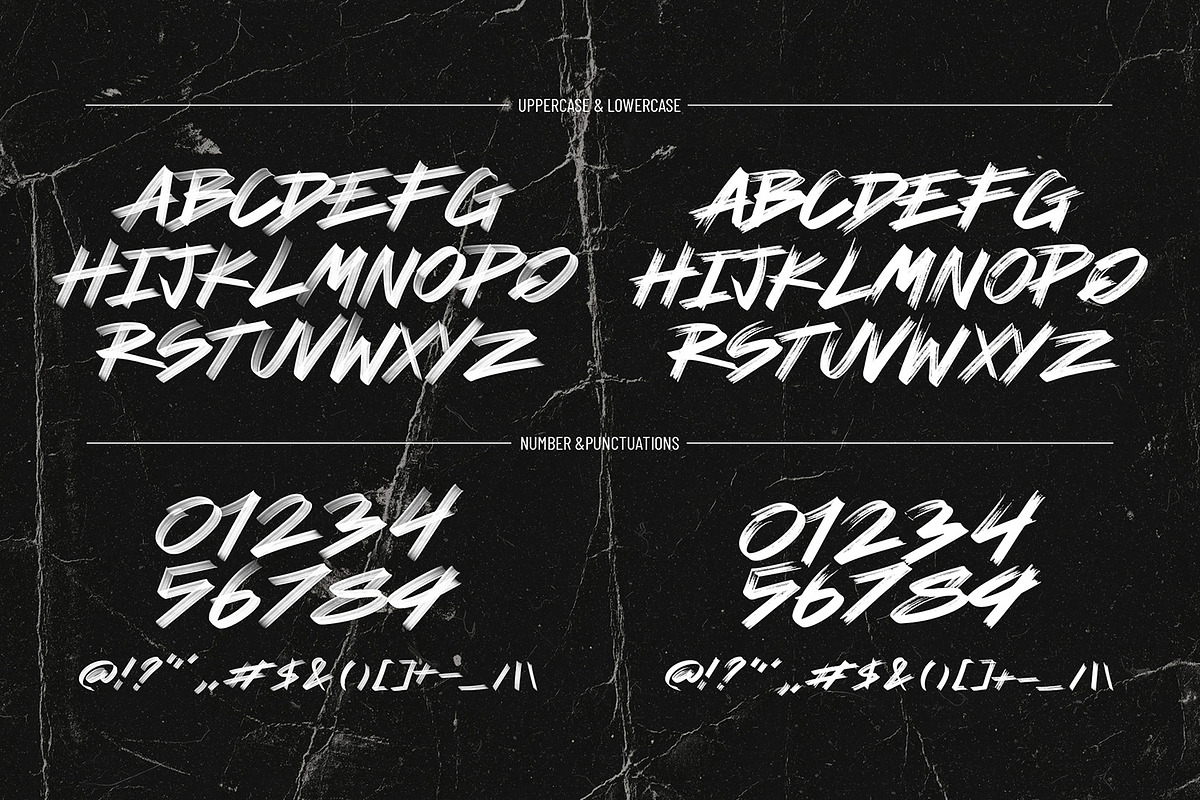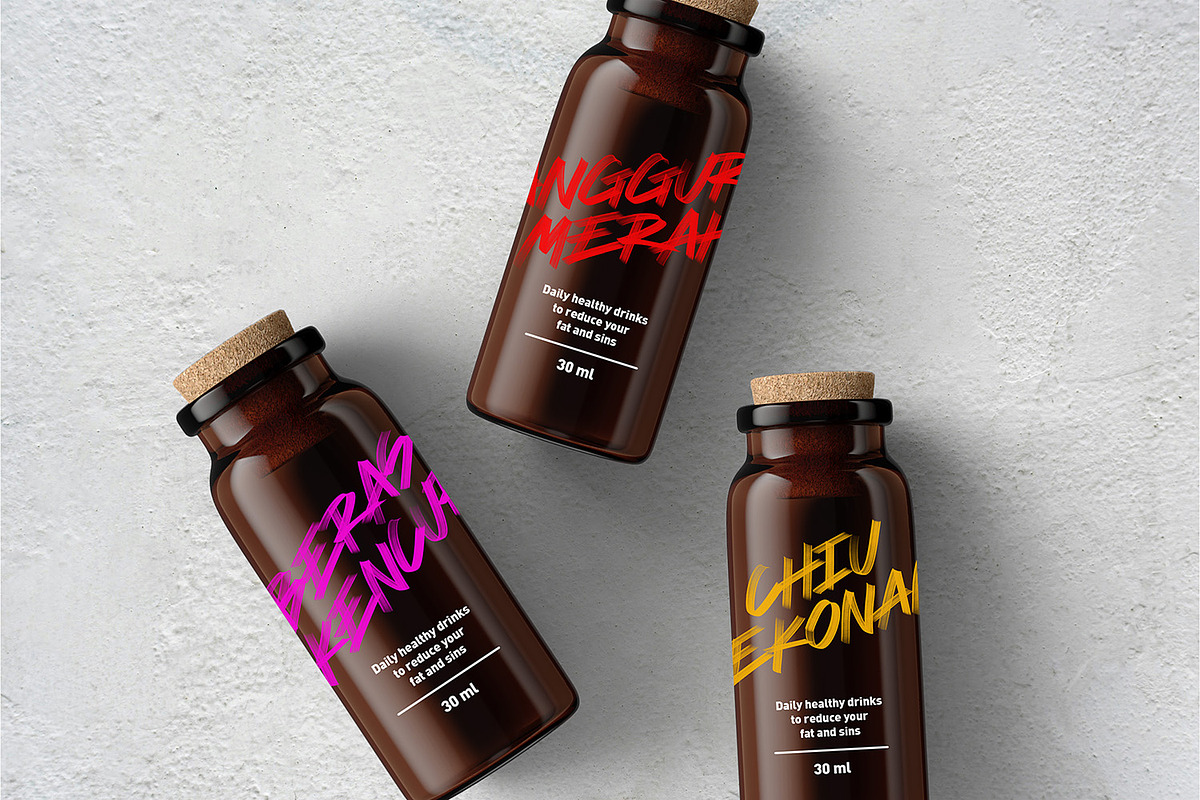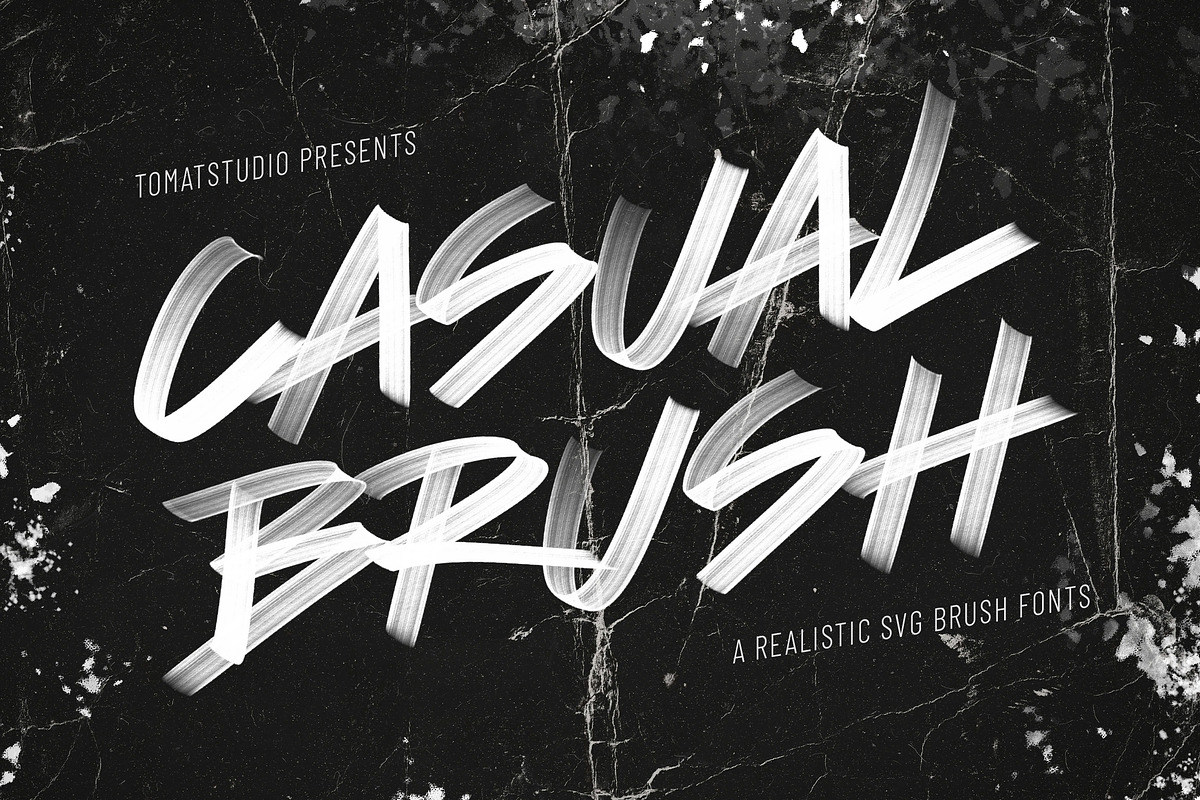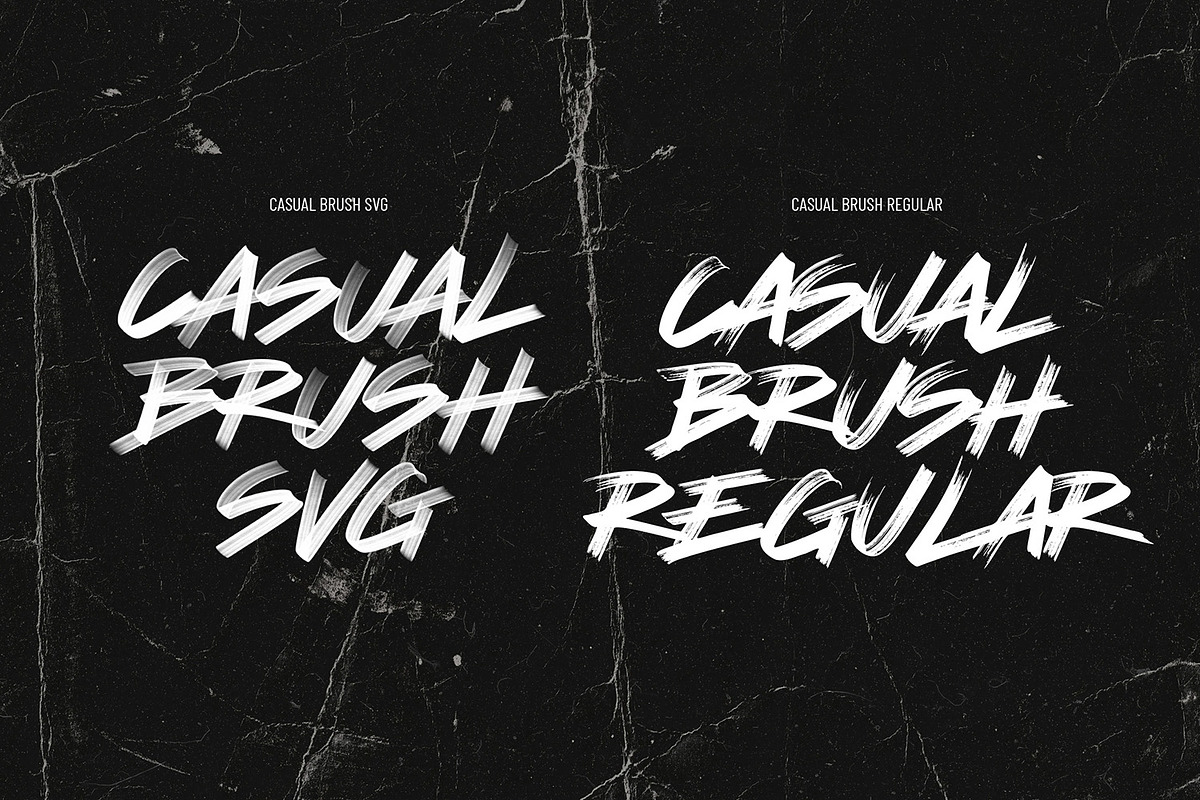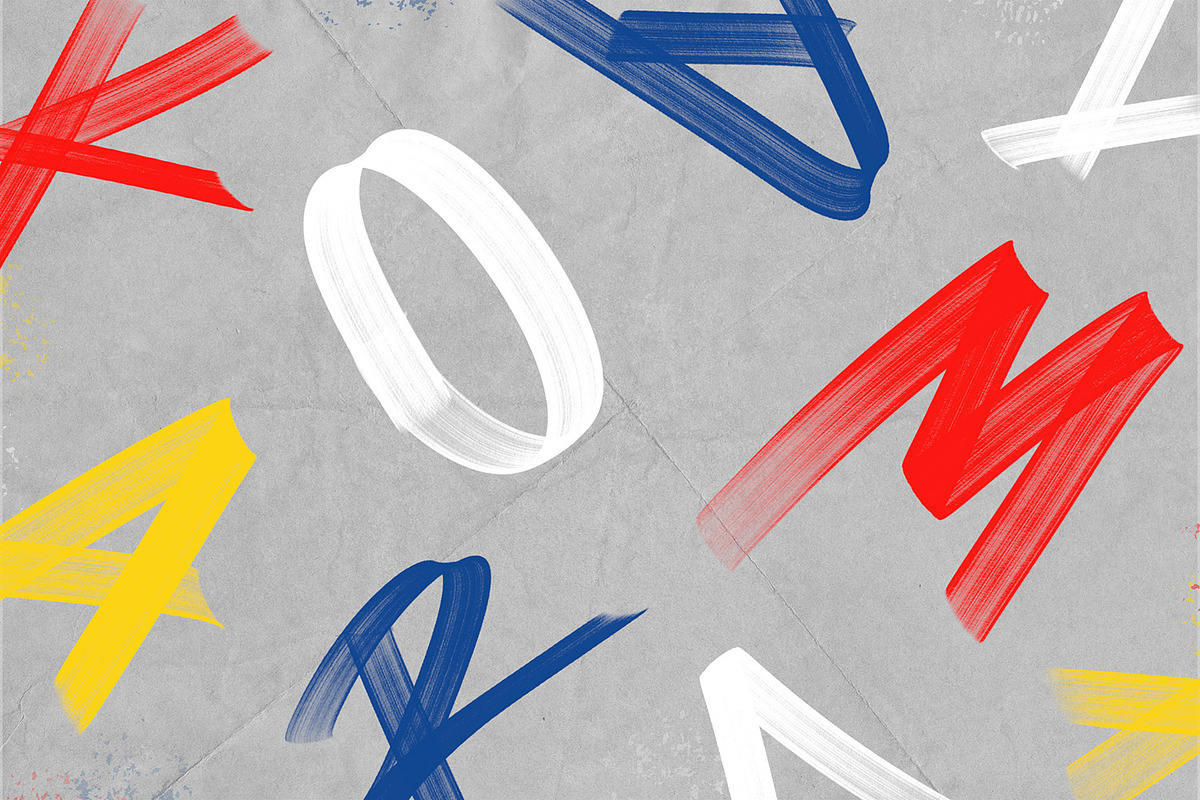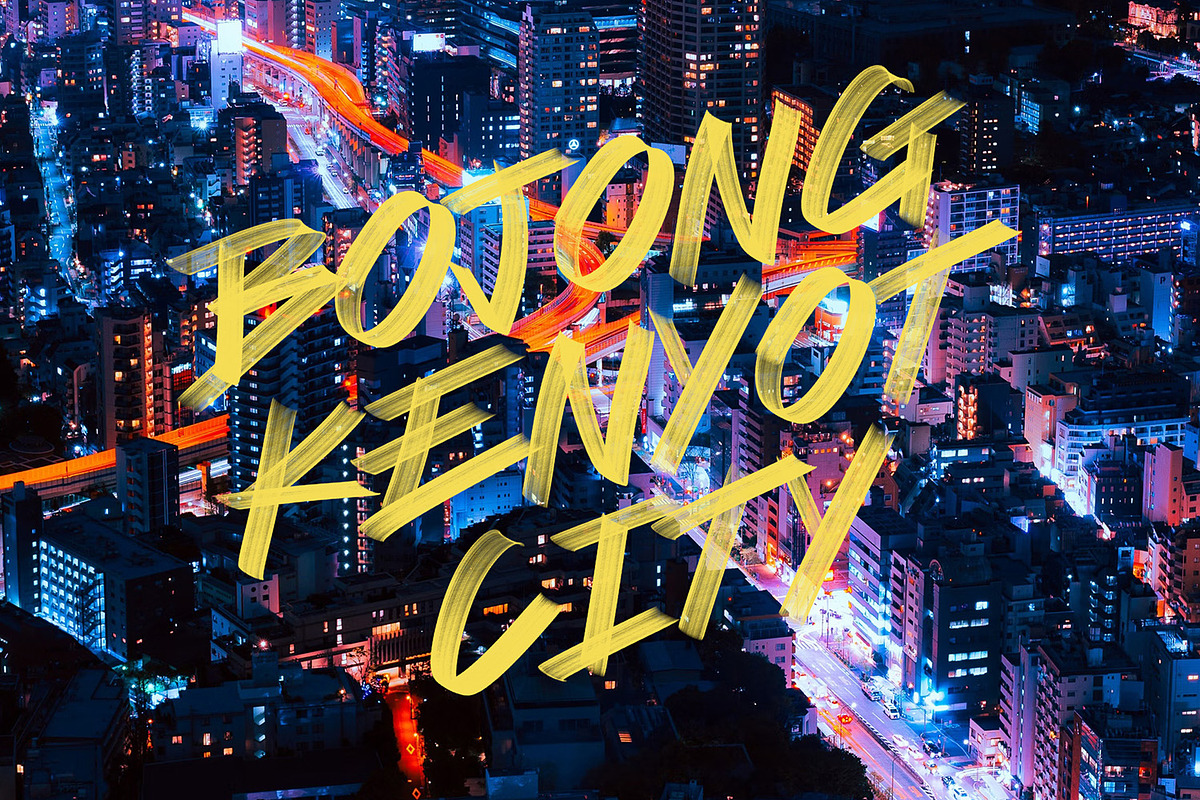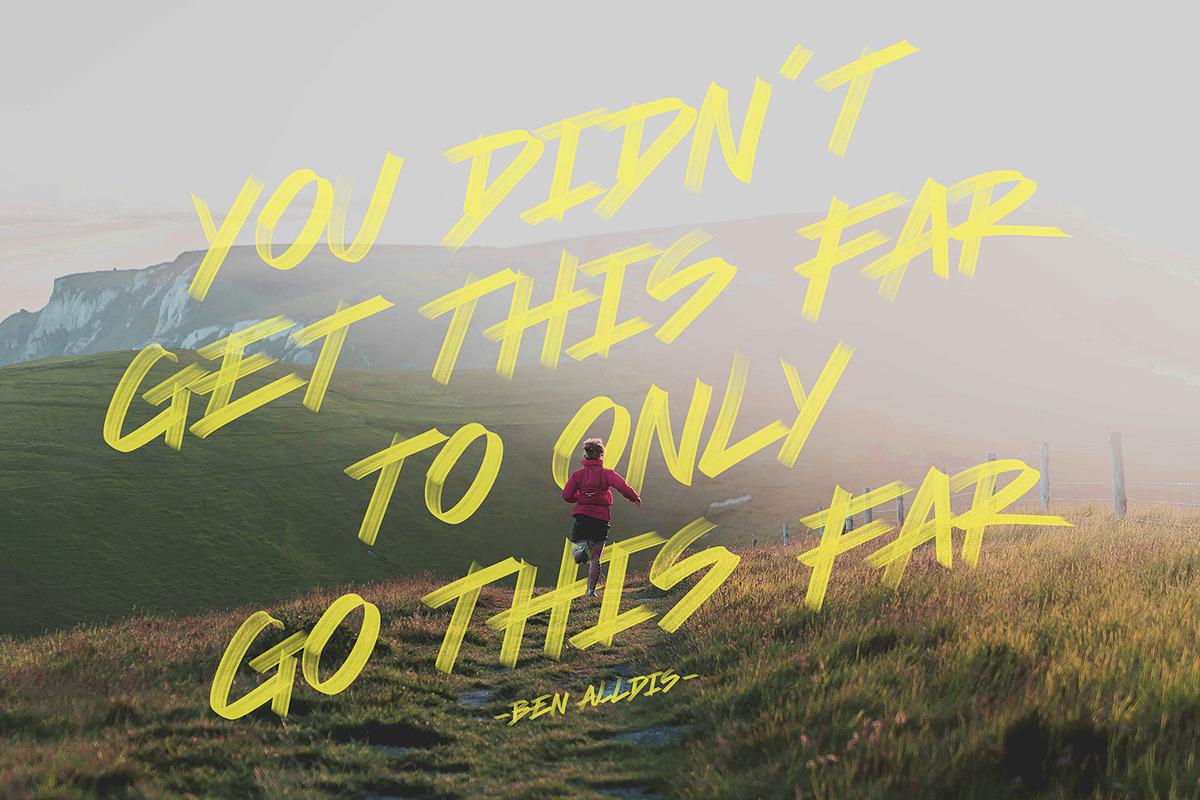
Casual Brush SVG Fonts
Realistic, rough and brush texture make this font unique and stand out. Crafted with natural flow handwriting, combined regular writing and graffiti street styles. You'll get two files SVG and regular fonts. Cheers!